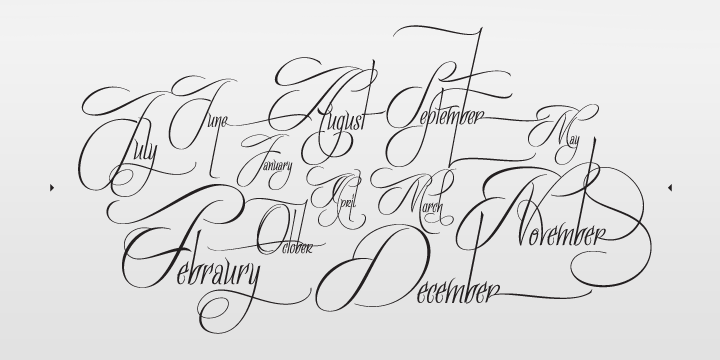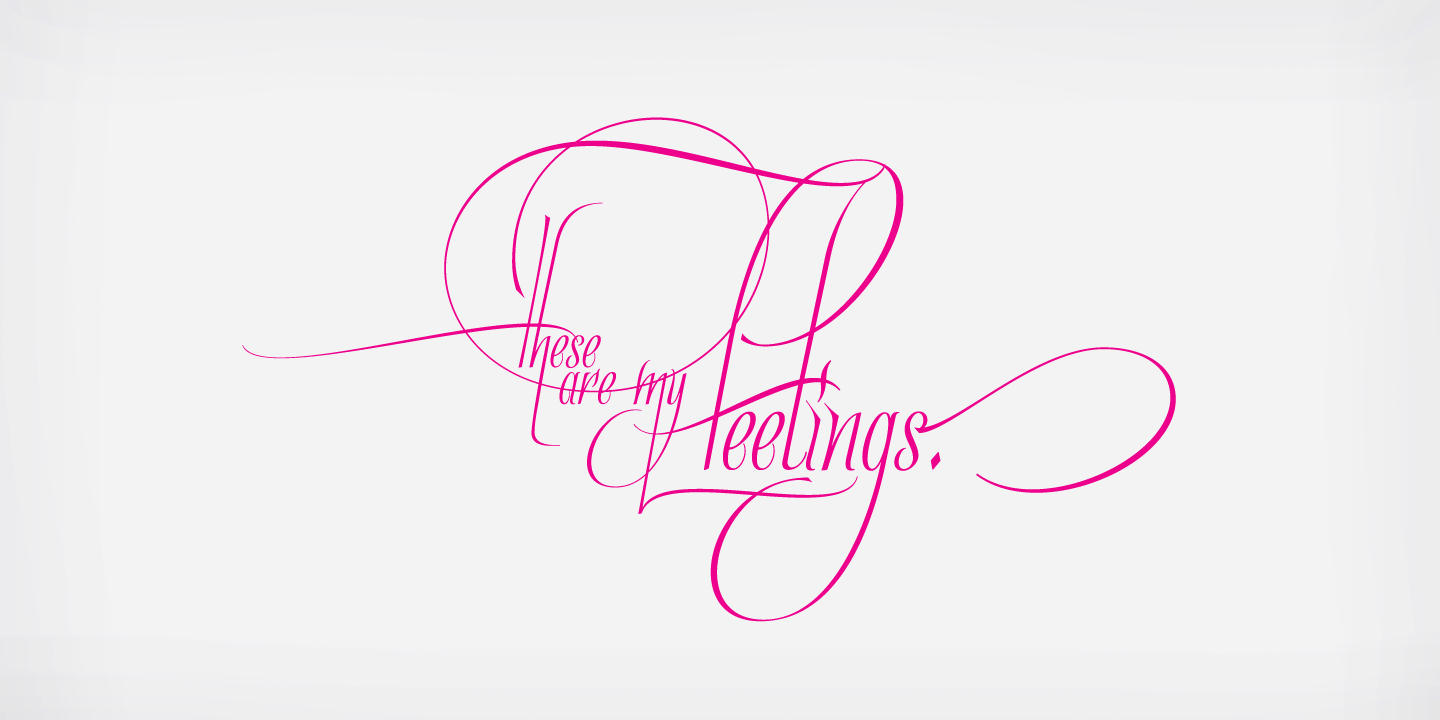
Quijote Sauvage Script Font
It was in the beginning of 2008 when I designed a font named Quijote, its predecessor.
In the middle of 2009, I looked at it again and thought it could be a good idea to make an update of it.